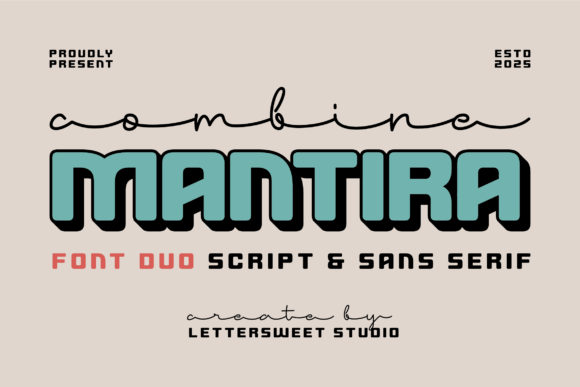
Designing with Personality: The Power of Combine Montira Font
Have you ever stared at a blank design canvas, waiting for inspiration to strike? It’s a moment we’ve all been there – the blank page staring back, begging for creativity. Sometimes, all it takes is the right combination of fonts to spark that perfect idea. Enter the dynamic duo of Combine Montira Font, a harmonious pairing of smooth monoline script and chunky rounded sans.
This versatile font duo is a game-changer for designers seeking to add personality to their projects. By combining the friendly, handwritten warmth of the script with the retro-modern vibe of the sans, designers can create eye-catching titles, logos, and packaging that truly stand out. Whether you’re working on a logo, event poster, or product packaging, Combine Montira Font is the perfect tool to bring your brand to life.
Combine Montira Font Key Features
- Unique Characteristics: The font features a unique blend of traditional and modern elements, with intricate details and subtle flourishes that add a touch of elegance to any design.
Designer Review: Combine Montira Font
Overall, I think the Combine Montira Font is a decent choice for designers, but it’s not without its flaws. Let’s break it down.
- The font has a unique blend of modern and vintage elements, making it perfect for creative projects that need a bit of personality.
- The high x-height and moderate contrast make it easy to read, even at smaller font sizes.
- The font family includes a range of weights and styles, giving designers plenty of options to work with.
- The font’s versatility can also be a weakness, as it may not be suitable for projects that require a more straightforward or minimalist aesthetic.
- The font’s lines can feel a bit inconsistent at times, which may be distracting in certain contexts.
- The font family could benefit from additional language support and more comprehensive character sets.
While the Combine Montira Font has its strengths and weaknesses, I think it’s a solid choice for designers who want to add some visual interest to their projects. However, it may not be the best fit for every project, and designers should carefully consider the font’s suitability before making a decision.
Combine Montira Font is ideal for creating elegant and modern designs, making it perfect for wedding invitations, business cards, and branding materials.
Use it in combination with bold or italic styles to create a unique and eye-catching design.
Experiment with different font sizes and colors to achieve a balanced and harmonious design.